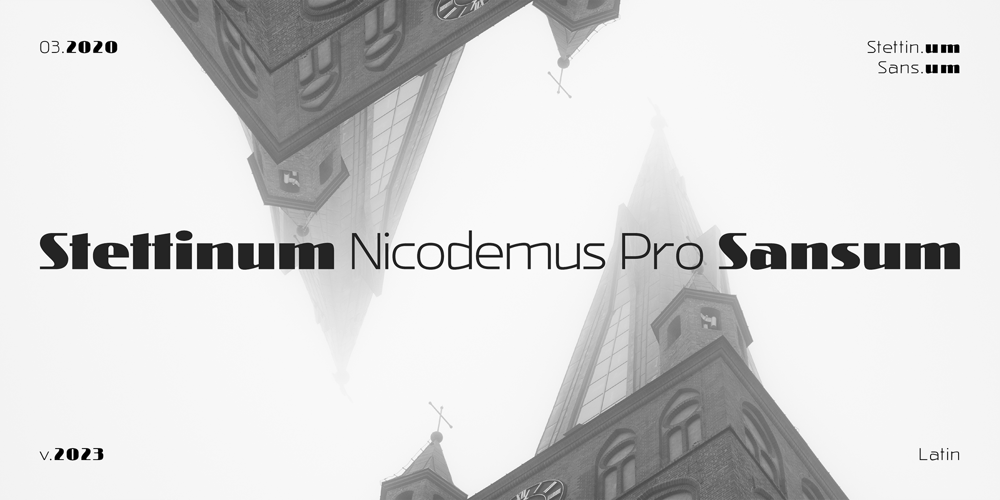
Stettinum Nicodemus Pro Sansum Font Family was designed by Piotr Wardziukiewicz and published by Wardziukiewicz. Stettinum Nicodemus Pro Sansum contains 7 styles and family package options. Stettinum Nicodemus Pro is a project to revitalize lettering from tenement houses in Szczecin. The project includes the digitization of letter remains from ul. Kaszubska in Szczecin to form functional fonts. The main idea of the project was to preserve the disappearing remnants of Szczecin’s typographic past, which, despite the span of glyphs limited by time, can be an inspiration for many future extensions of the already established family. Stettinum Nicodemus Pro Sansum is a family of typefaces consisting of 7 variations. The block structure with a regular structure and a relatively high minuscule allows for many different applications. Versions 700, 800 and 900 are intended for titles, headings and emphasis, typefaces 300 to 600 are text typefaces.